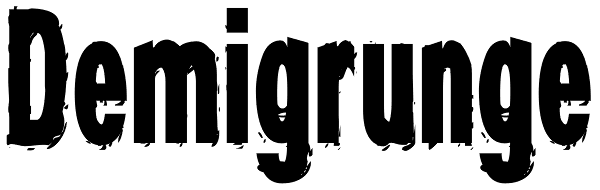
Demigrunge
Just a hint of grunge in this font, one side fairly clean and one side with subtle grunge. Demigrunge lends itself readily to display, headlines and writing sentences without verbs in them. Just one style in this family. Lots of accented characters...